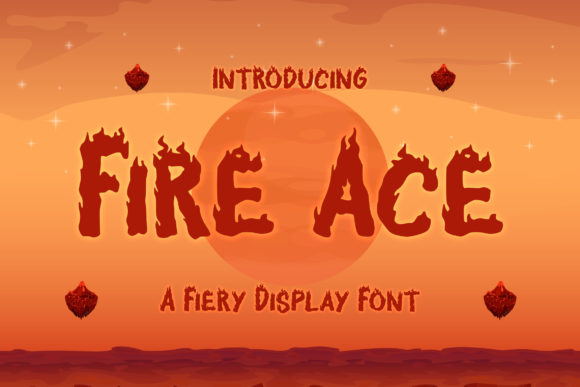
Unleash the Sizzling Heat of Fire Ace: A Display Font That Commands Attention
In a world of bland and forgettable fonts, Fire Ace emerges as a blazing inferno, ready to ignite your designs with its fiery personality. This display font is not for the faint-hearted; it's a bold and daring creation that demands attention and leaves a lasting impression.
Crafted by the masterminds at TypeFactory, Fire Ace is a visual masterpiece that embodies the raw power of fire. Its sharp edges and dynamic curves dance across the page, evoking a sense of danger and excitement. Whether you're creating logos, posters, or eye-catching headlines, Fire Ace will set your designs ablaze.
Feel the Thrill of the Chase with Fire Ace
With Fire Ace at your disposal, you'll embark on a thrilling journey of creative expression. This font is perfect for capturing the essence of speed and adrenaline, making it the ideal choice for racing events, sports promotions, and action-packed adventures. Its fiery aura will leave your audience breathless and craving more.
Ignite Your Passion with Fire Ace
Let Fire Ace ignite the passion within your creations. This font is a perfect fit for spicy food branding, conjuring up images of sizzling grills and tantalizing flavors. Its fiery strokes will make your designs sizzle and dance, leaving a lasting impression on your customers.
Unleash Your Inner Fire with Fire Ace
Fire Ace is more than just a font; it's a gateway to unleashing your inner fire and expressing your individuality. Whether you're a designer, a marketer, or simply someone who appreciates the beauty of typography, this font will ignite your imagination and leave you craving more.
Embrace the Power of Fire Ace Today
Don't settle for ordinary fonts that blend into the background. Choose Fire Ace and let your designs burn bright. Its fiery personality and captivating style will set you apart from the competition and leave a lasting impression on your audience.